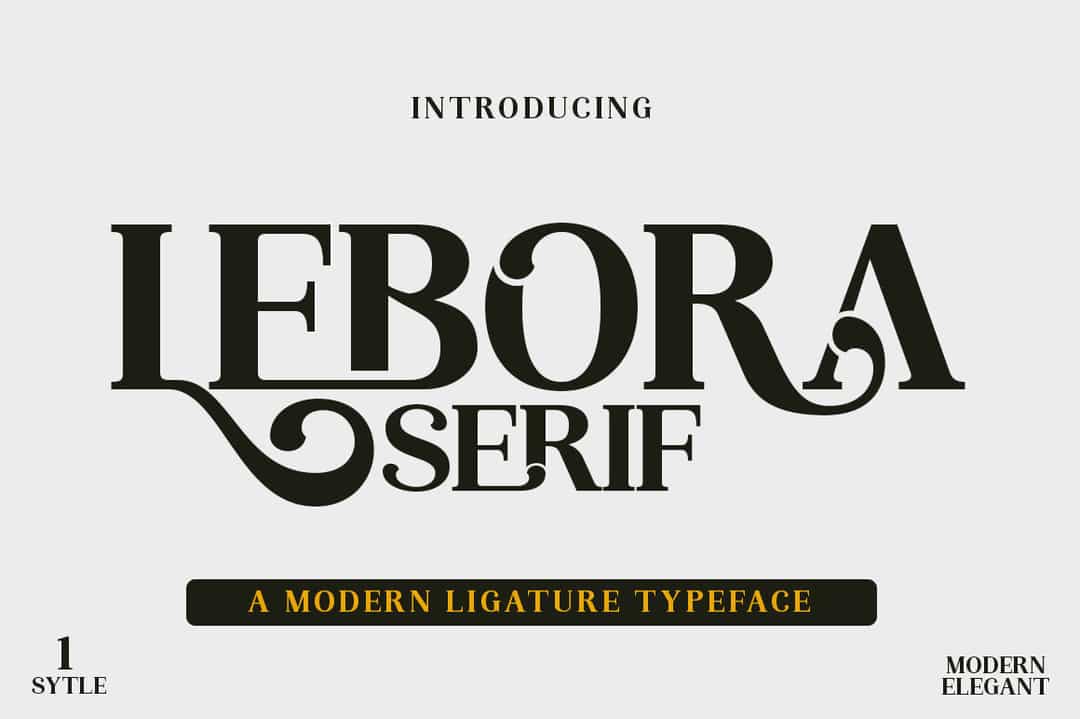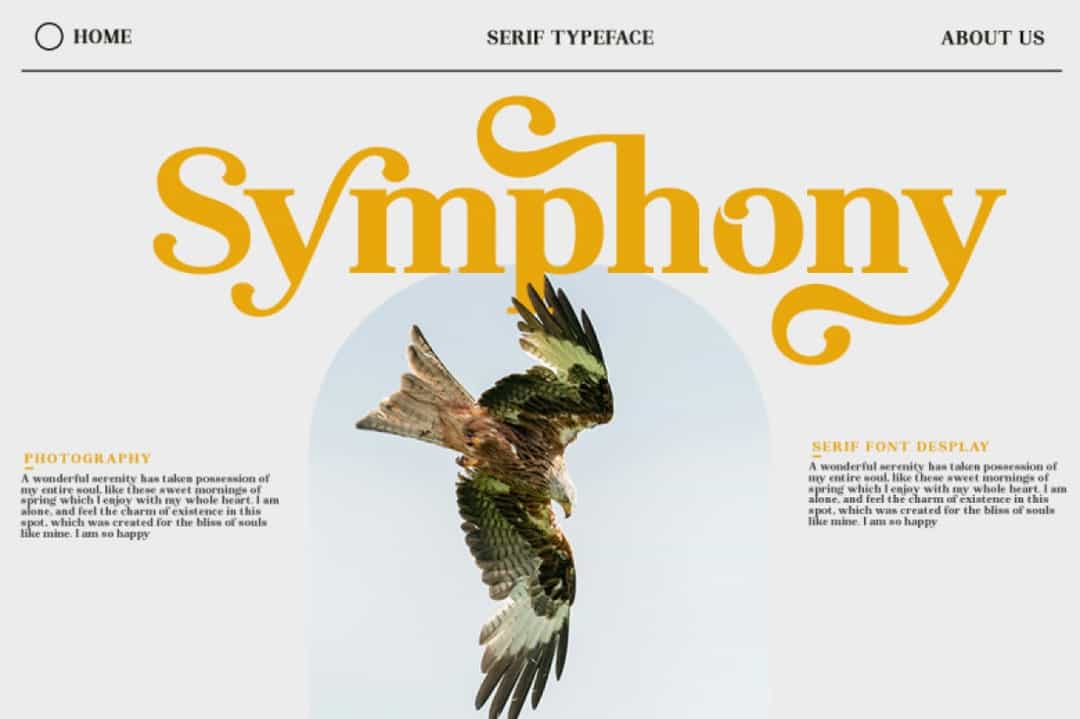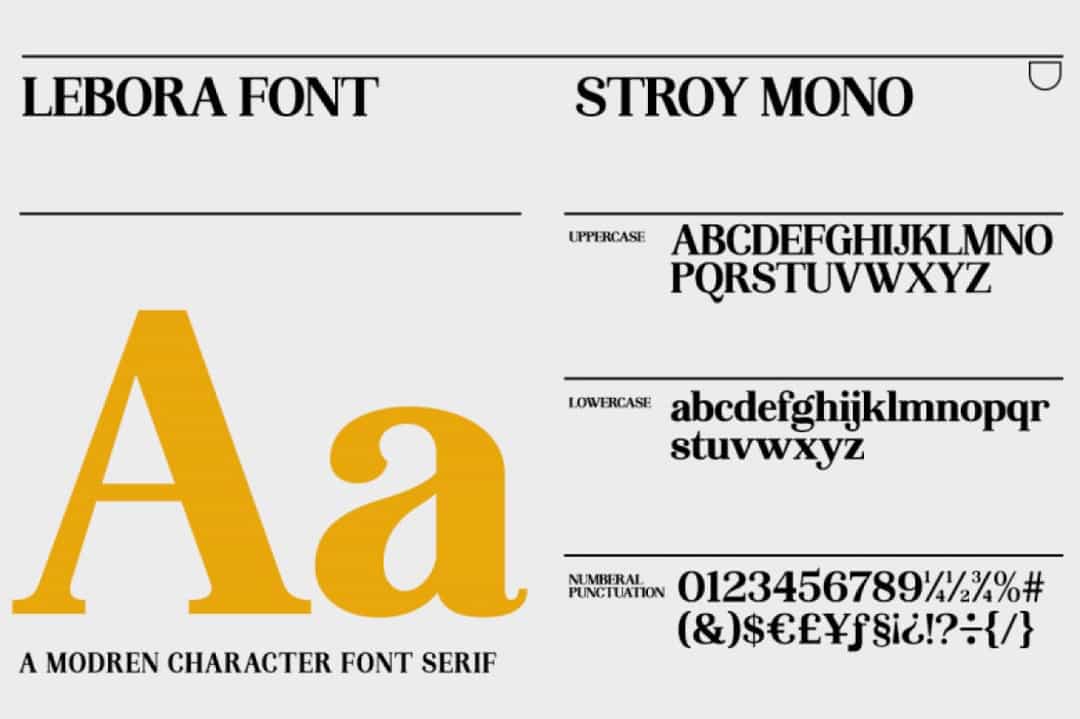
Lebora is an elegant ligature serif font contains a unique binding style, high-contrast and light style with best suitable for feminine logo signs, fashion heads & editorial designs, branding projects, packaging, magazine titles, adverts, T-shirts, postcards, and many more.